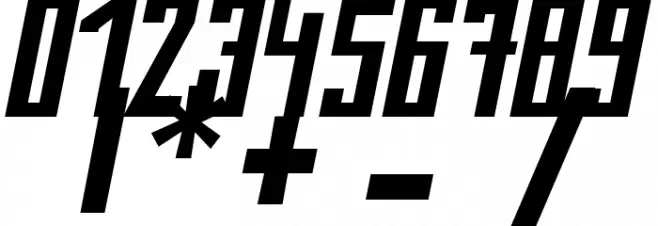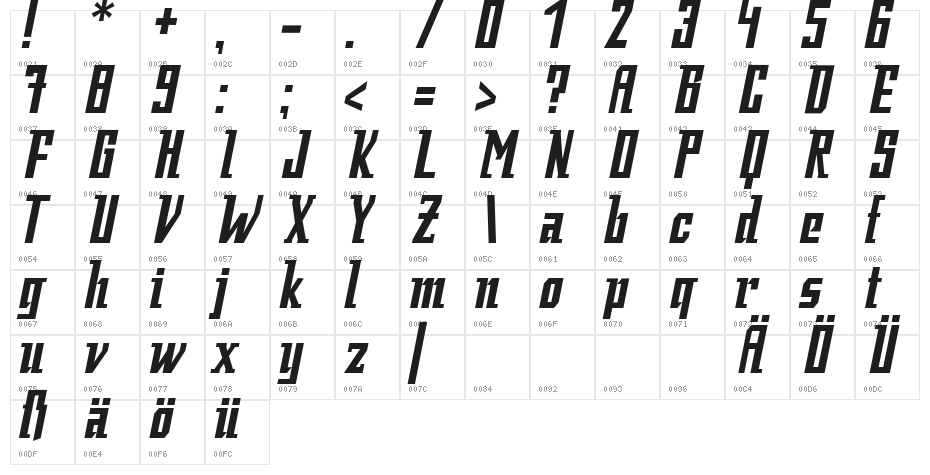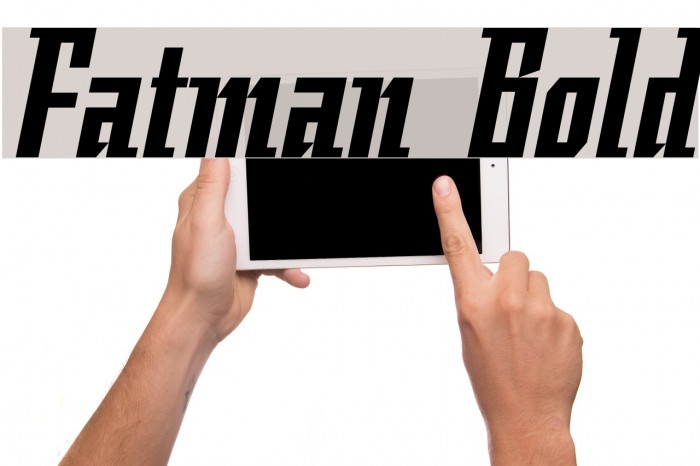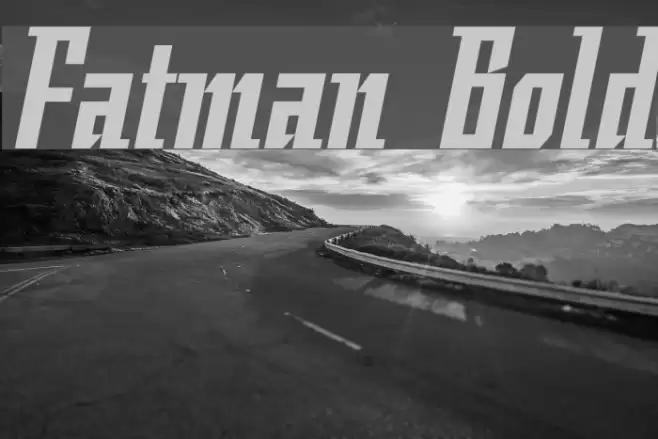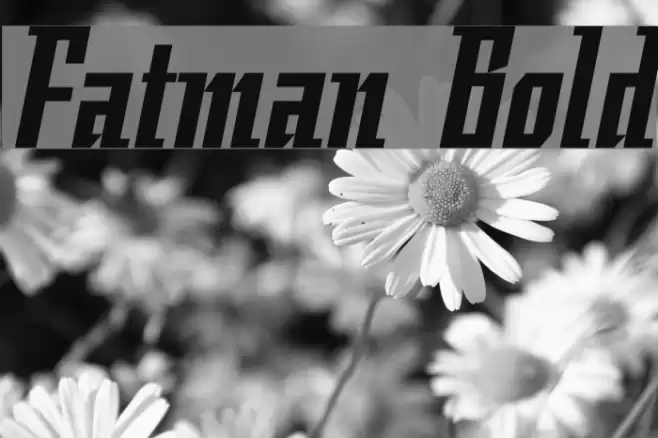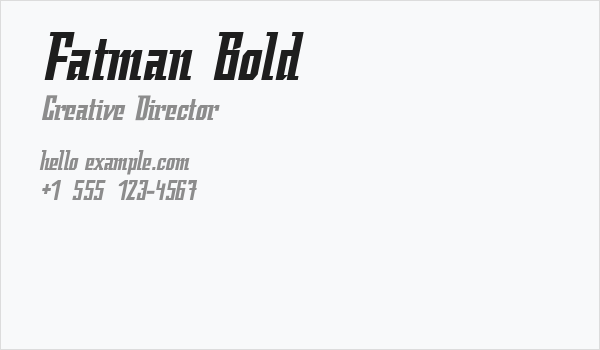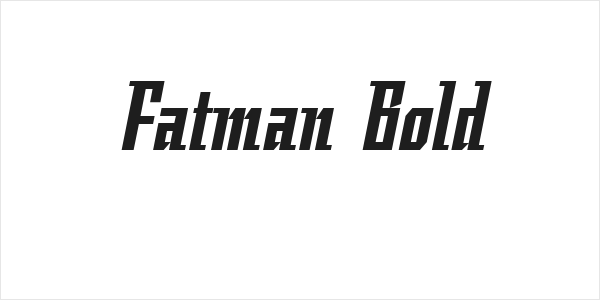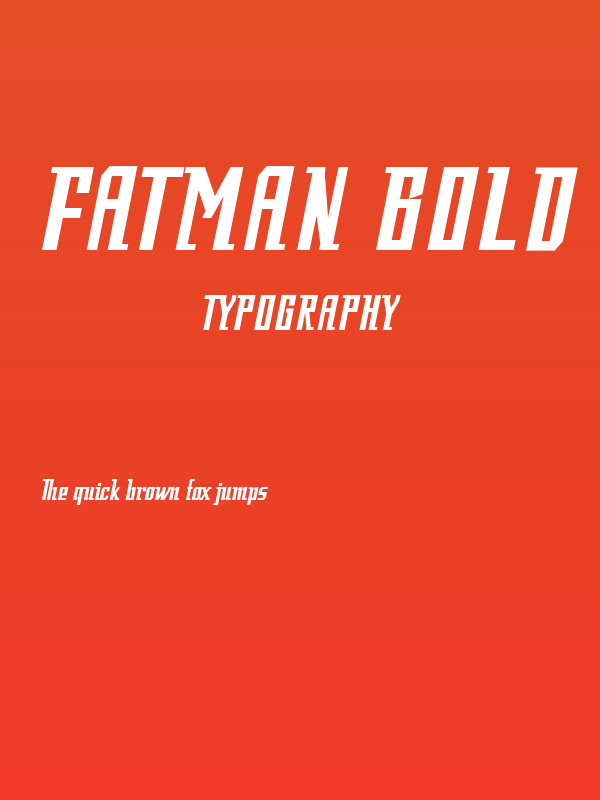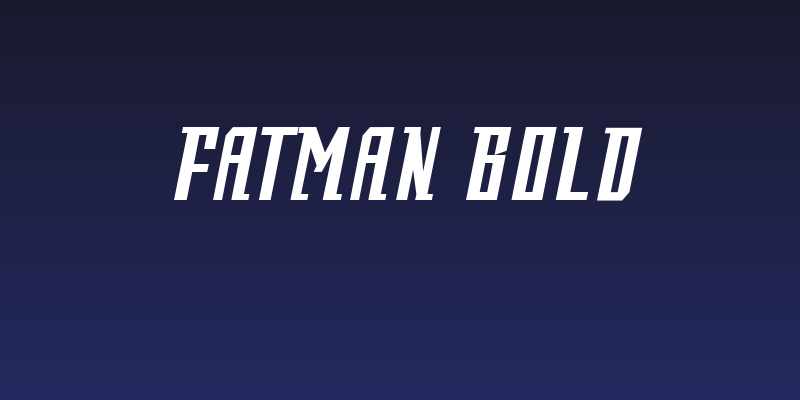
Fatman Bold Font
Fatman Bold Description
This font features a bold and angular design with a strong presence. The characters are sharply defined with a distinct slant, giving it a dynamic and energetic feel. The uppercase and lowercase letters maintain a consistent style, with exaggerated serifs and a slightly condensed form. The numbers and special characters follow the same bold and angular theme, making them stand out prominently. This font's unique style is suitable for projects that require a strong visual impact.